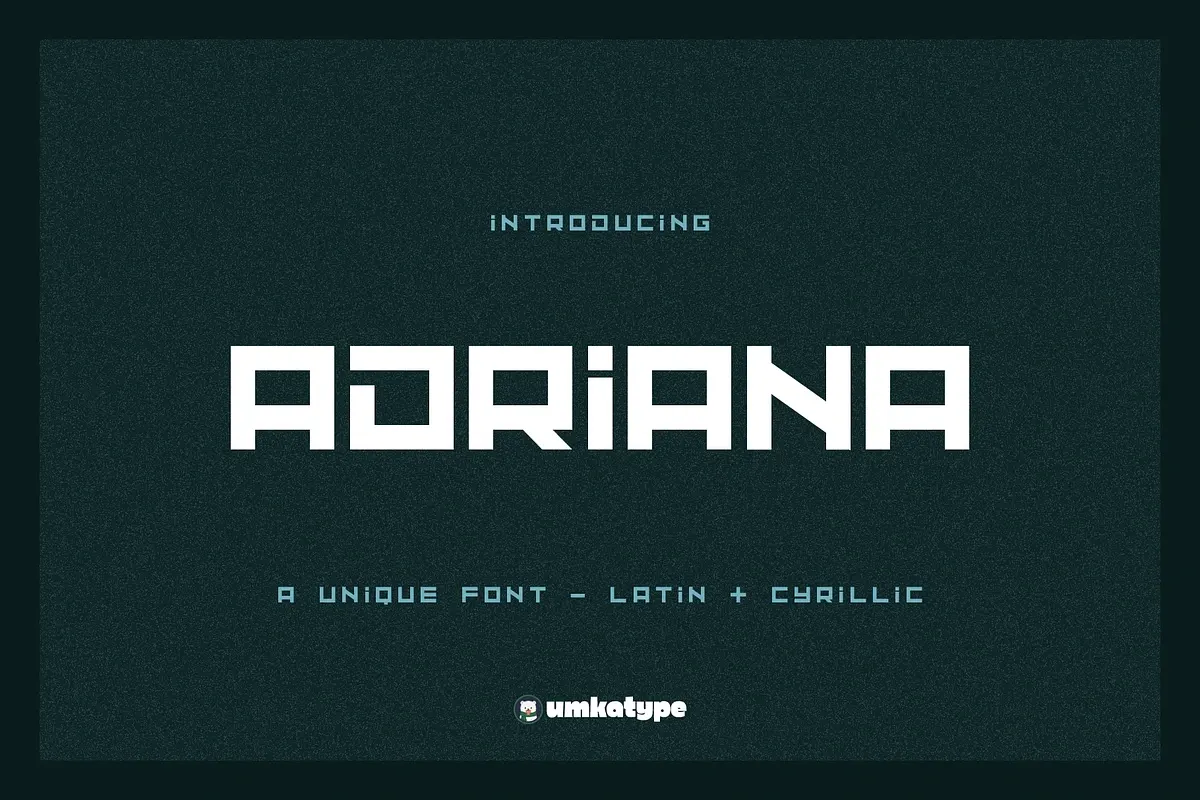
Adriana Display Font Free Download is a bold and elegant typeface designed to make a strong impression. With its sharp, modern letterforms and unique character details, this font is perfect for creating striking headlines, logos, posters, and any design that needs to stand out with style and personality.
The display design of Adriana makes it ideal for use in larger text sizes where its intricate details can shine. Whether you're designing for a luxury brand, crafting eye-catching promotional material, or creating an impactful logo, Adriana brings a distinctive, sophisticated touch to your typography.